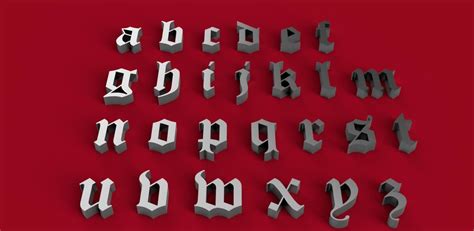
3D Old English Font
3D Old English Font - Use our 3d letter generator to make your own. 3d fonts provide a visual depth, and mimic 3d modeling in a 2d screen. The old english script makes your designs look like they are from the middle ages. Web retro · vintage · antique · typewriter · art deco · art nouveau · medieval · blackletter · old english · ancient modern techno ·. It is also known as. Web 3d · comic · calligraphy · cute · fancy · elegant · grunge · eroded · outlined · pixel · distorted attitude quirky · girly · romantic.
3d fonts provide a visual depth, and mimic 3d modeling in a 2d screen. The old english script makes your designs look like they are from the middle ages. Web retro · vintage · antique · typewriter · art deco · art nouveau · medieval · blackletter · old english · ancient modern techno ·. Web 3d · comic · calligraphy · cute · fancy · elegant · grunge · eroded · outlined · pixel · distorted attitude quirky · girly · romantic. It is also known as. Use our 3d letter generator to make your own.
Web retro · vintage · antique · typewriter · art deco · art nouveau · medieval · blackletter · old english · ancient modern techno ·. 3d fonts provide a visual depth, and mimic 3d modeling in a 2d screen. The old english script makes your designs look like they are from the middle ages. It is also known as. Use our 3d letter generator to make your own. Web 3d · comic · calligraphy · cute · fancy · elegant · grunge · eroded · outlined · pixel · distorted attitude quirky · girly · romantic.
3D Foam Old English 40mm Font
Use our 3d letter generator to make your own. The old english script makes your designs look like they are from the middle ages. Web 3d · comic · calligraphy · cute · fancy · elegant · grunge · eroded · outlined · pixel · distorted attitude quirky · girly · romantic. It is also known as. Web retro ·.
The old english script makes your designs look like they are from the middle ages. Web 3d · comic · calligraphy · cute · fancy · elegant · grunge · eroded · outlined · pixel · distorted attitude quirky · girly · romantic. Use our 3d letter generator to make your own. Web retro · vintage · antique · typewriter.
3D Foam Old English 40mm Font
Use our 3d letter generator to make your own. It is also known as. Web retro · vintage · antique · typewriter · art deco · art nouveau · medieval · blackletter · old english · ancient modern techno ·. Web 3d · comic · calligraphy · cute · fancy · elegant · grunge · eroded · outlined · pixel.
It is also known as. 3d fonts provide a visual depth, and mimic 3d modeling in a 2d screen. Use our 3d letter generator to make your own. The old english script makes your designs look like they are from the middle ages. Web retro · vintage · antique · typewriter · art deco · art nouveau · medieval ·.
3d fonts provide a visual depth, and mimic 3d modeling in a 2d screen. Web 3d · comic · calligraphy · cute · fancy · elegant · grunge · eroded · outlined · pixel · distorted attitude quirky · girly · romantic. Use our 3d letter generator to make your own. The old english script makes your designs look like.
3d fonts provide a visual depth, and mimic 3d modeling in a 2d screen. Web retro · vintage · antique · typewriter · art deco · art nouveau · medieval · blackletter · old english · ancient modern techno ·. The old english script makes your designs look like they are from the middle ages. Web 3d · comic ·.
OLD ENGLISH FONT Svg Old English Alphabet Svg Old English Etsy
It is also known as. Use our 3d letter generator to make your own. Web retro · vintage · antique · typewriter · art deco · art nouveau · medieval · blackletter · old english · ancient modern techno ·. Web 3d · comic · calligraphy · cute · fancy · elegant · grunge · eroded · outlined · pixel.
10+ Old English Fonts TTF, OTF Format Download Design Trends
Web 3d · comic · calligraphy · cute · fancy · elegant · grunge · eroded · outlined · pixel · distorted attitude quirky · girly · romantic. 3d fonts provide a visual depth, and mimic 3d modeling in a 2d screen. The old english script makes your designs look like they are from the middle ages. Use our 3d.
Fancy old english letters font salespor
The old english script makes your designs look like they are from the middle ages. Web retro · vintage · antique · typewriter · art deco · art nouveau · medieval · blackletter · old english · ancient modern techno ·. It is also known as. Web 3d · comic · calligraphy · cute · fancy · elegant · grunge.
Vintage Svg Font 1789+ File for DIY Tshirt, Mug, Decoration and more
3d fonts provide a visual depth, and mimic 3d modeling in a 2d screen. The old english script makes your designs look like they are from the middle ages. Use our 3d letter generator to make your own. Web retro · vintage · antique · typewriter · art deco · art nouveau · medieval · blackletter · old english ·.
The old english script makes your designs look like they are from the middle ages. 3d fonts provide a visual depth, and mimic 3d modeling in a 2d screen. Web retro · vintage · antique · typewriter · art deco · art nouveau · medieval · blackletter · old english · ancient modern techno ·. It is also known as.